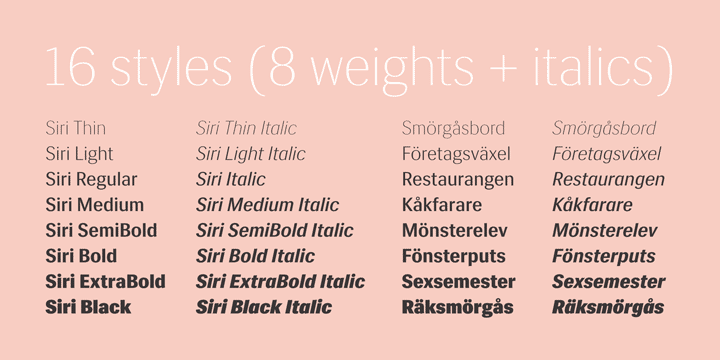
Siri Font Family
The typeface Siri is a labour of love. A love for a Scandinavian tradition that we try our damnedest to keep evolving. A love for letters, original and bold, practical and beautiful. A love for the craft that helps create practical and beautiful typography. With its wide range of 16 styles, useful OpenType-features and four stylistic sets, Siri is well prepared for anything you wish to use it for.
It has great readability, a large x-height, slightly condensed letter forms and a strong identity. These features makes it work over a wide selection of applications. It’s designed to perform well on both screen and print and is tested in both environments during the design process.
Siri is a female Nordic name, comprising the words Beauty and Strength. We hope these qualities are well reflected in the typeface. Last but not least, this typeface is also about Görans love for his daughter Siri, born on Valentines day 2011. The typeface obviously pales in comparison, but we can’t sell the kid, so the type will have to make do.